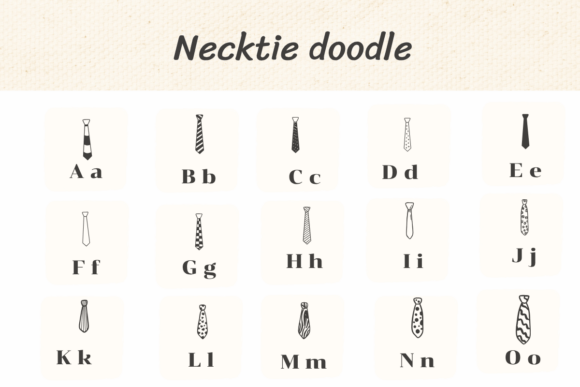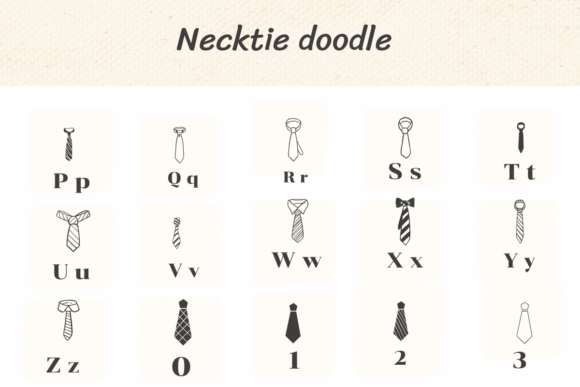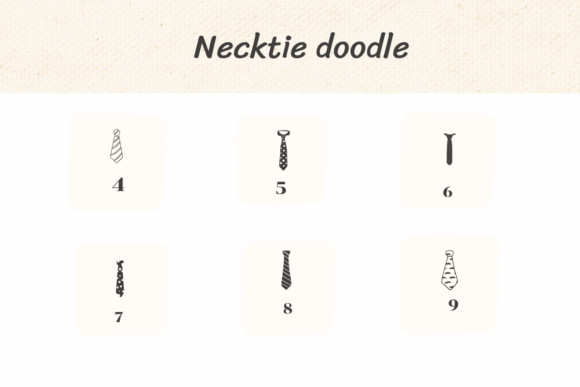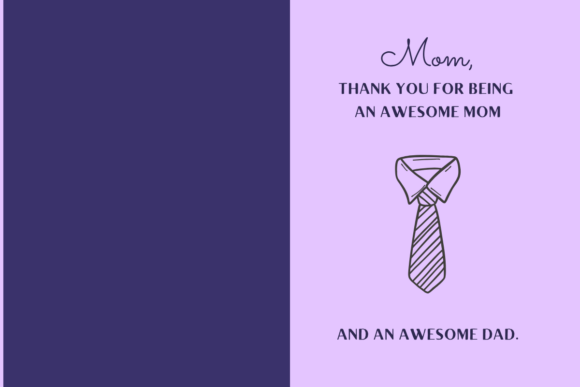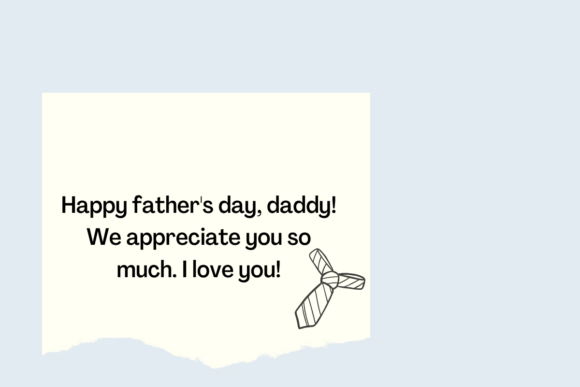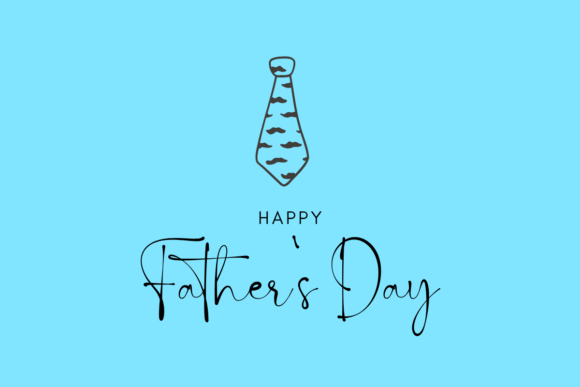
Introduction to Necktie Doodle Font Font
Fonts play a crucial role in design, and the Necktie Doodle Font font is a typeface that brings both character and versatility to any project. Whether you’re working on a branding project, a website, or a print design, the Necktie Doodle Font font offers a unique style that can elevate your work.
Necktie doodle is a dingbats font with theme with a sketch style.
This font can enhance your creative projects such as wedding invitations, DIY, crafts, decorations, logos, and many other creative ideas .
Key Features of Necktie Doodle Font Font
Why Choose Necktie Doodle Font Font?
The Necktie Doodle Font font is more than just a typeface – it’s a design tool that helps you communicate your message with style and clarity. Its unique character set and versatile design make it suitable for a wide range of applications, from elegant invitations to bold headlines.
With its carefully crafted letterforms and balanced proportions, the Necktie Doodle Font font ensures readability and visual appeal across all mediums.
What makes Necktie Doodle Font font special?
The Necktie Doodle Font font stands out with its unique design, exceptional readability, and versatility across various design applications.